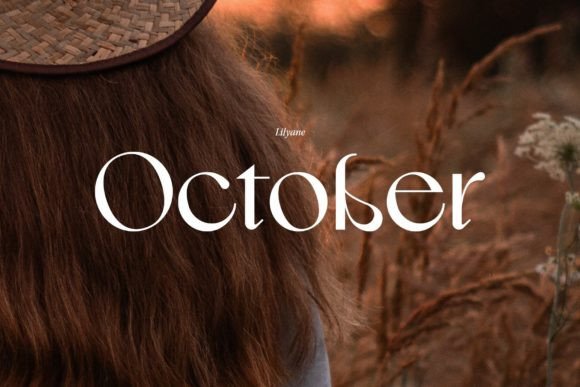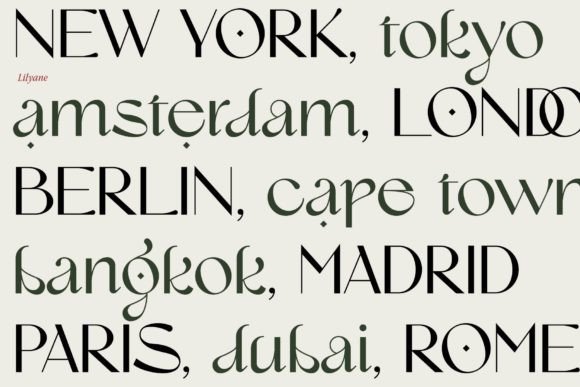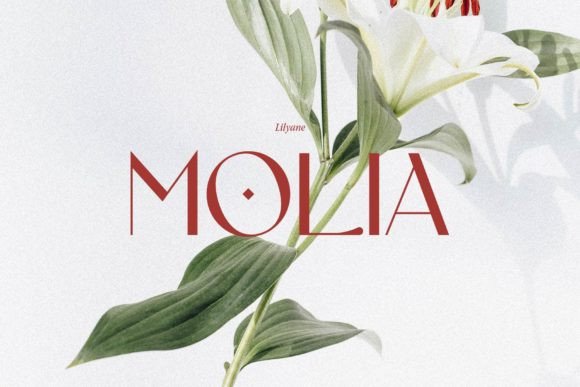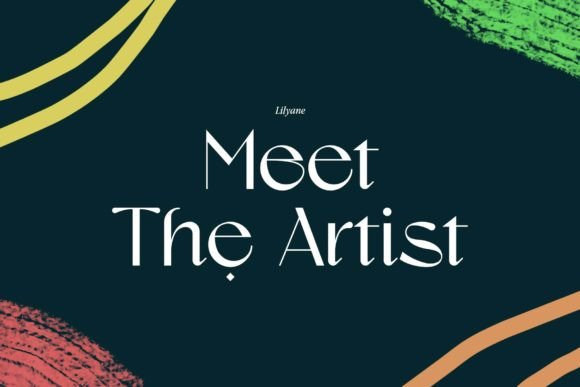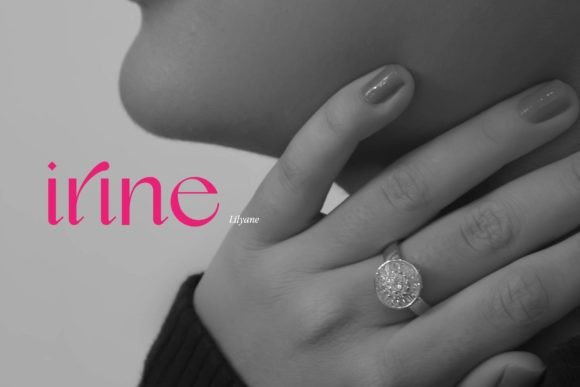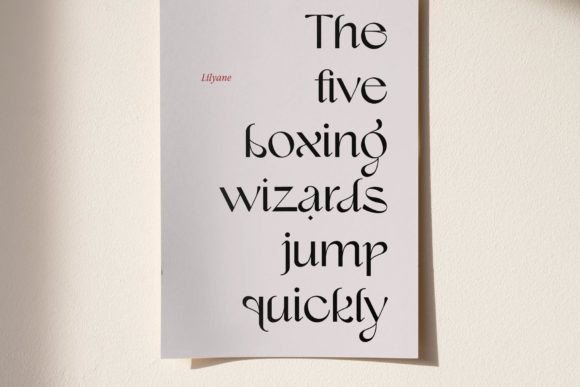
Introduction to Lilyane Font Font
Fonts play a crucial role in design, and the Lilyane Font font is a typeface that brings both character and versatility to any project. Whether you’re working on a branding project, a website, or a print design, the Lilyane Font font offers a unique style that can elevate your work.
Lilyane is a modern, elegant, and lovely display font that embodies charm end authenticity in every character.
Use it for branding, social media posts, packaging, or anything else that needs an exquisite touch This font is PUA encoded, which means you can access all of the glyphs and swashes with ease.
Key Features of Lilyane Font Font
Why Choose Lilyane Font Font?
The Lilyane Font font is more than just a typeface – it’s a design tool that helps you communicate your message with style and clarity. Its unique character set and versatile design make it suitable for a wide range of applications, from elegant invitations to bold headlines.
With its carefully crafted letterforms and balanced proportions, the Lilyane Font font ensures readability and visual appeal across all mediums.
What makes Lilyane Font font special?
The Lilyane Font font stands out with its unique design, exceptional readability, and versatility across various design applications.